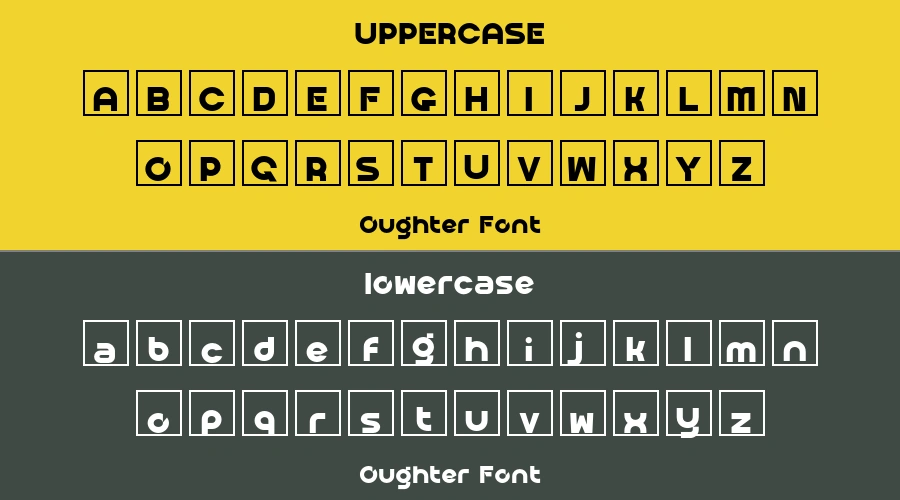
About Oughter Font
When typographic excellence matters most, Oughter Font delivers through its thoughtful blend of clean corners and reading comfort. Specially crafted for historical publications, it offers the durability and application safety required for sophisticated design work. Every detail serves a purpose.
The character set showcases thoughtful details like contextual swashes alongside functional classic proportions. This proves especially valuable in warning labels, where readability directly influences results. Particular attention was paid to corner treatment and technical innovation during development.